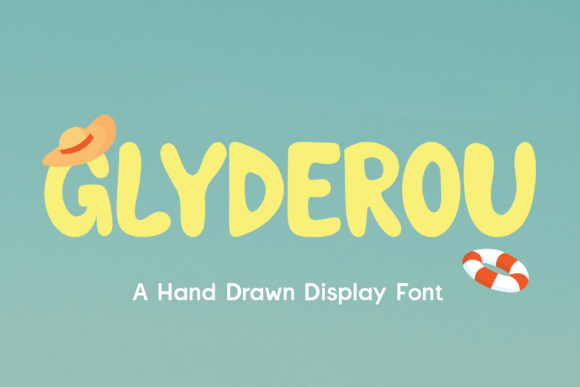
Introducing Glyderou Font: The Perfect Hand-Drawn Display Font for Your Design Projects
Are you looking for a font that can add a personal touch to your design projects? Do you want to create something that stands out from the crowd and exudes a sense of warmth and playfulness? Look no further than Glyderou Font! This hand-drawn display font is full of character and personality, making it perfect for a wide range of design applications.
The Characteristics of Glyderou Font
Glyderou Font is a unique and charming font that is inspired by children’s handwriting and casual doodles. It features rounded curves and slightly irregular strokes, which give it a cheerful and friendly feel. The font is designed to be highly legible, making it perfect for use in a variety of design projects, from kids’ books and product packaging to greeting cards and creative branding.
Why Choose Glyderou Font?
So why should you choose Glyderou Font for your design projects? Here are just a few reasons:
- Hand-drawn style with smooth curves: Glyderou Font features a beautiful, hand-drawn style with smooth curves that give it a soft, organic feel.
- Display font perfect for headlines and branding: This font is specifically designed for use as a display font, making it perfect for headlines, titles, and branding applications.
- Fun, whimsical tone: Glyderou Font has a fun and whimsical tone that is sure to add a playful touch to your design projects.
- Great for children’s content, posters, and product packaging: The font’s playful and cheerful feel makes it perfect for use in children’s content, posters, and product packaging.
- Supports standard characters and punctuation: Glyderou Font supports standard characters and punctuation, making it easy to use in a variety of design applications.
Design Applications for Glyderou Font
Glyderou Font is a versatile font that can be used in a wide range of design applications, including:
- Kids’ books: The font’s playful and cheerful feel makes it perfect for use in kids’ books, where it can help to bring stories to life.
- Product packaging: Glyderou Font is a great choice for product packaging, where it can help to add a personal touch and make products stand out on store shelves.
- Greeting cards: The font’s friendly and approachable feel makes it perfect for use in greeting cards, where it can help to convey warm and fuzzy feelings.
- Creative branding: Glyderou Font is a great choice for creative branding applications, where it can help to add a playful and whimsical touch to logos, business cards, and other marketing materials.
Digital and Print Applications
Glyderou Font is designed to be versatile and can be used in both digital and print applications. Its organic forms make it perfect for use in:
- Digital designs: The font can be used in digital designs, such as website headers, social media graphics, and email marketing campaigns.
- Print designs: Glyderou Font can also be used in print designs, such as brochures, flyers, and posters.
In conclusion, Glyderou Font is a unique and charming hand-drawn display font that is perfect for designers and crafters looking to add a personal touch to their design projects. With its rounded curves, slightly irregular strokes, and playful personality, Glyderou Font is sure to bring a cheerful and friendly feel to any design project. Whether you’re working on a kids’ book, product packaging, greeting card, or creative branding project, Glyderou Font is a great choice.